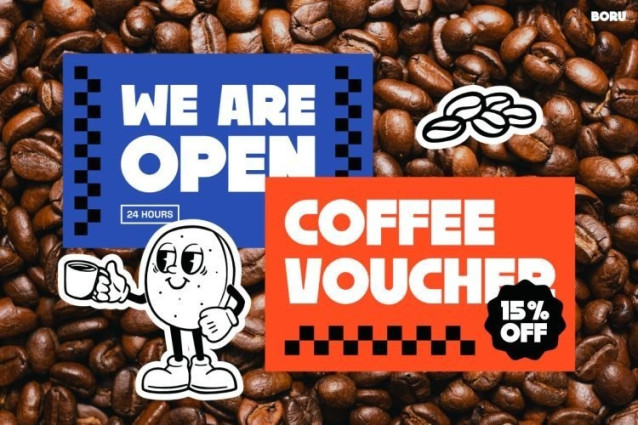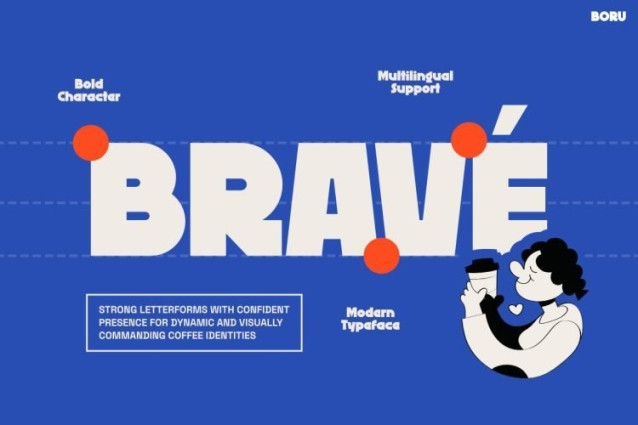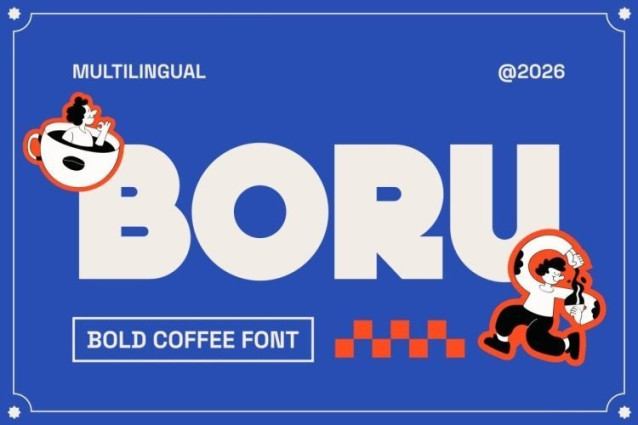
Boru Font
Boru Font is a bold, chunky display font with a friendly retro aesthetic. Its ultra-heavy weight, tight spacing, and soft, rounded corners give it a playful yet commanding presence that reads as warm and approachable.
Best suited to coffee shop branding, cafe menus, food and beverage packaging, product labels, and promotional posters. It is a natural fit for merchandise, apparel, and casual social media graphics where a bold, retro-inspired headline is needed to capture attention.